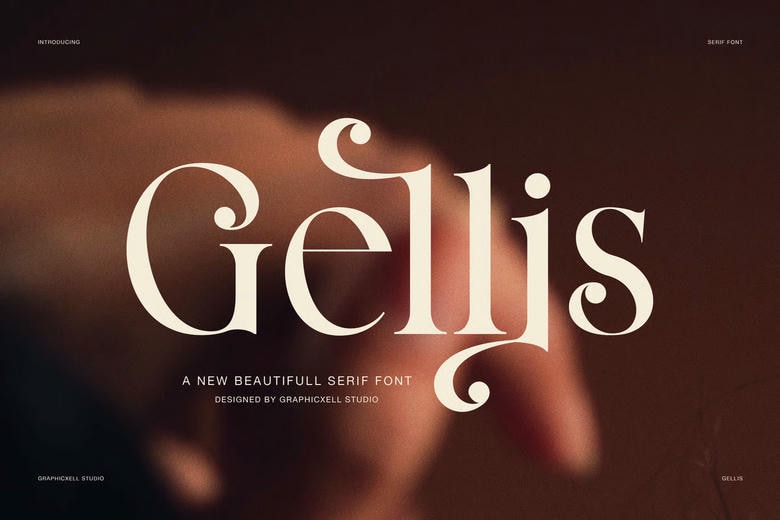
Gellis Font
Gellis is an elegant serif display font with an expression of refinement, confidence, and timeless beauty. Inspired by classic editorial typography and modern luxury branding, this font is inspired by soft curves and strong serif structures. As a result, Gellis brings a sophisticated presence without losing visual balance and modernity.
This serif font has smooth stroke contrast, graceful terminals and carefully shaped letterforms. Moreover, the flowing nature of the details produces a natural rhythm which makes headlines and brand marks more effective. With the expressive alternates that are available in Gellis, designers have the ability to develop typography with a distinctive and personal feel in every layout.
Gellis is particularly good for high class branding and editorial design. Designers might pick it for an architecture studio, interior firms, fashion portfolio and lifestyle photos branding. In addition, the font is great for beauty brands, cafes, hotels, and creative agencies. Its elegant nature allows for minimal compositions as well as richly layered visuals.
Gellis Serif Font